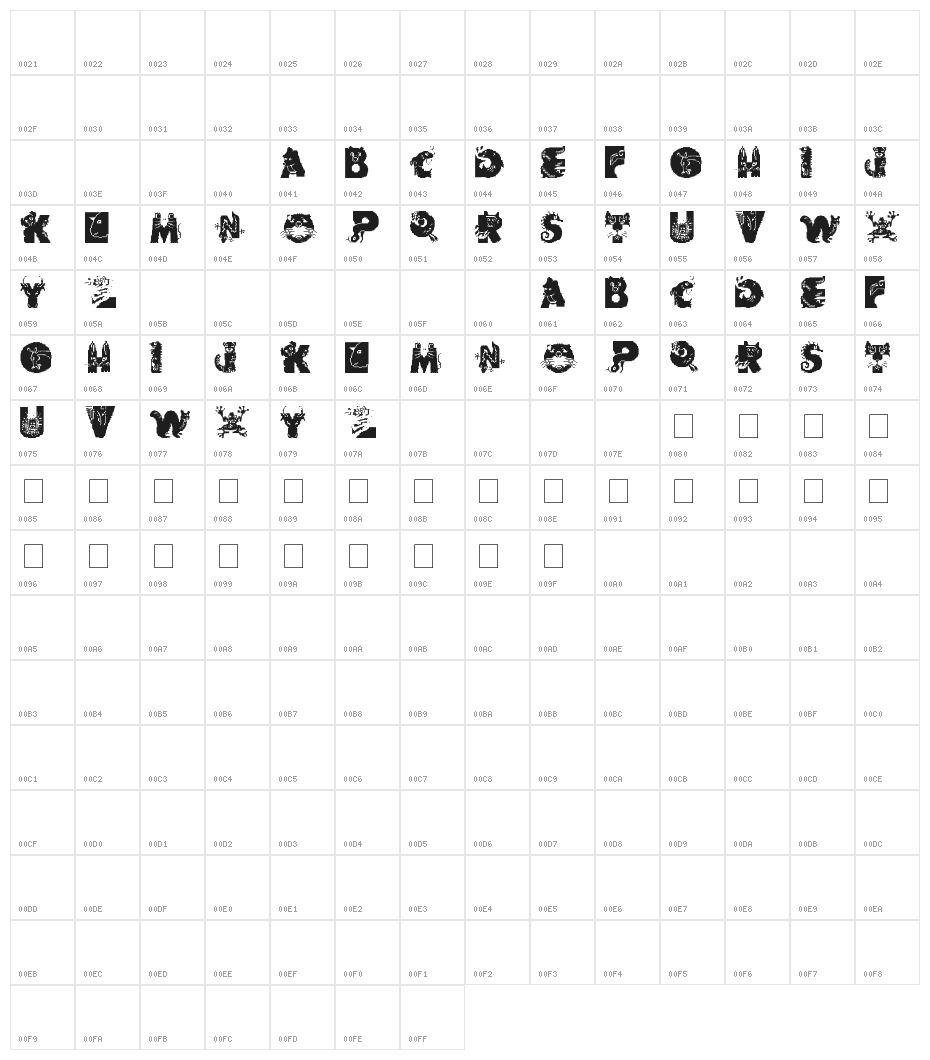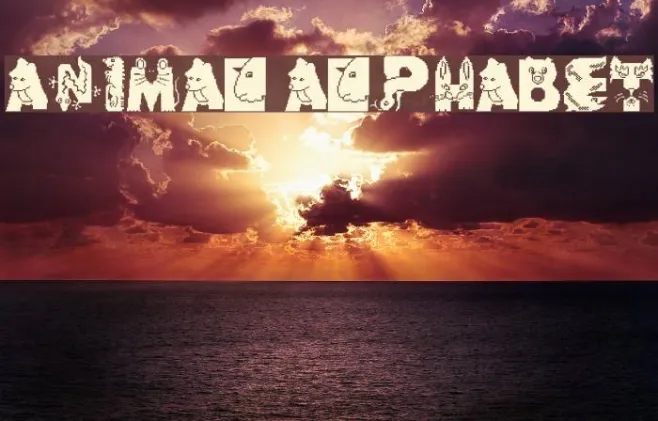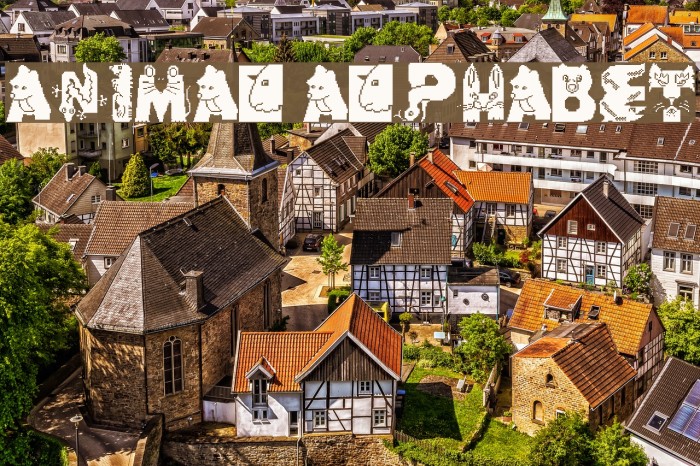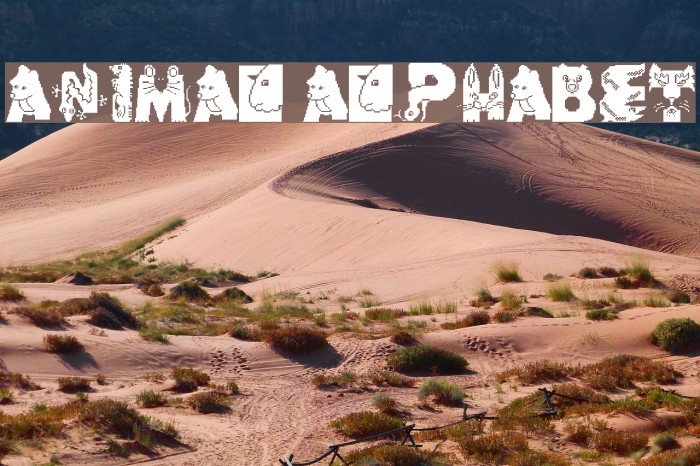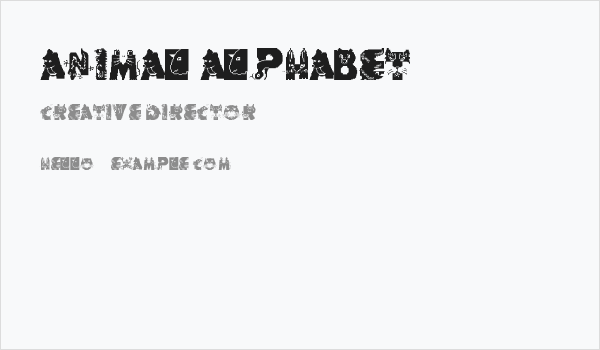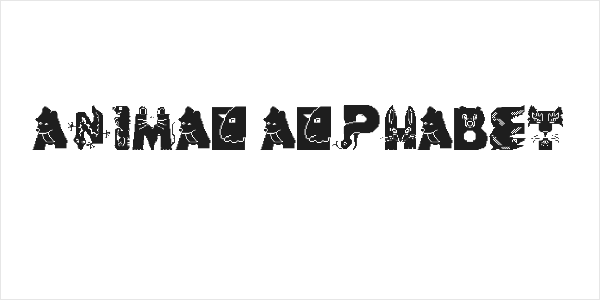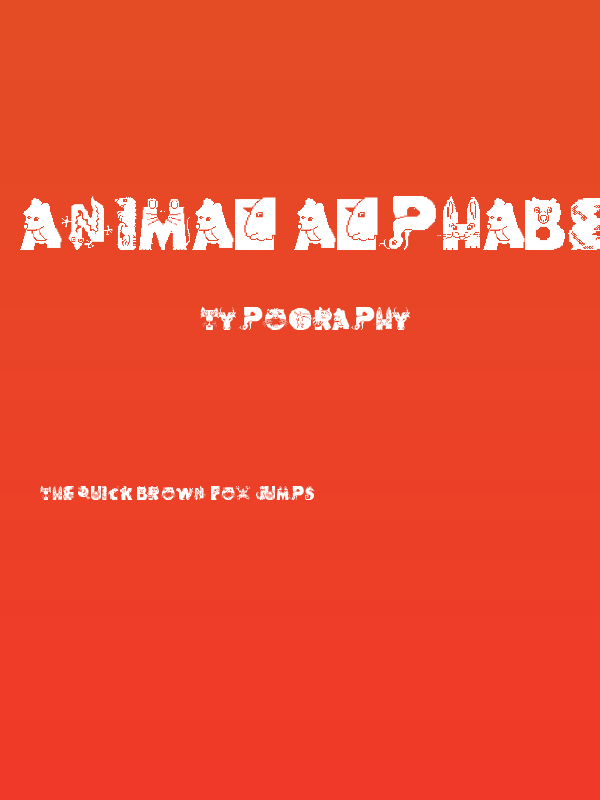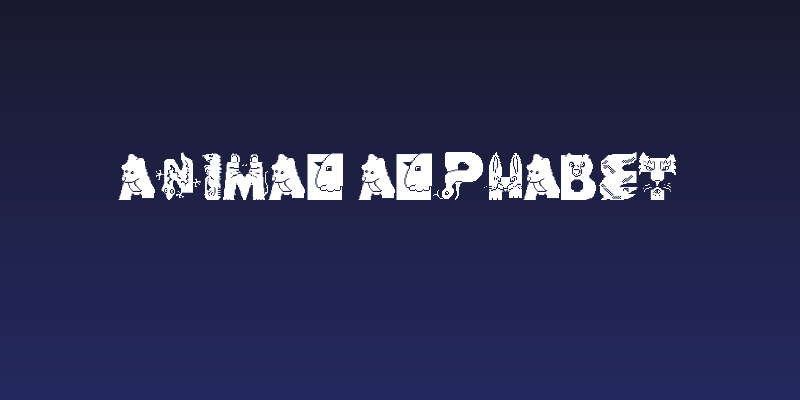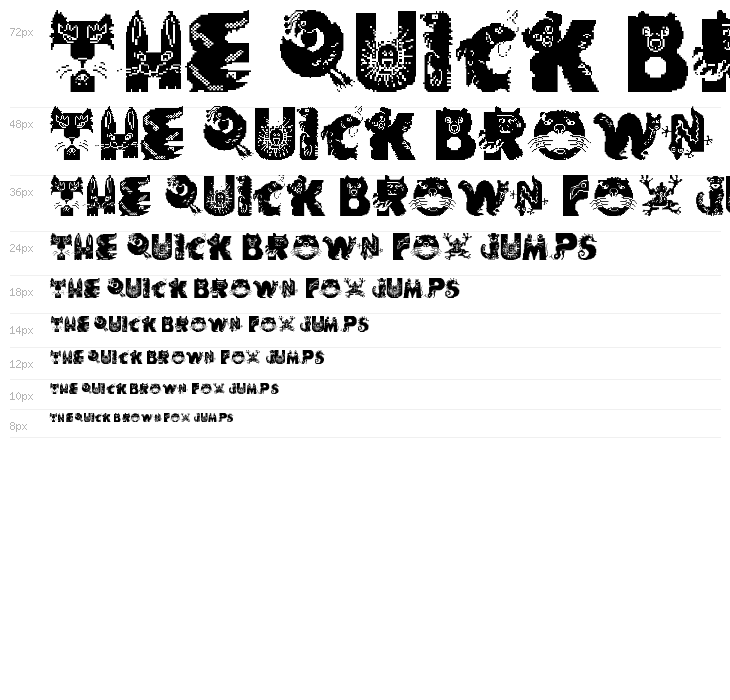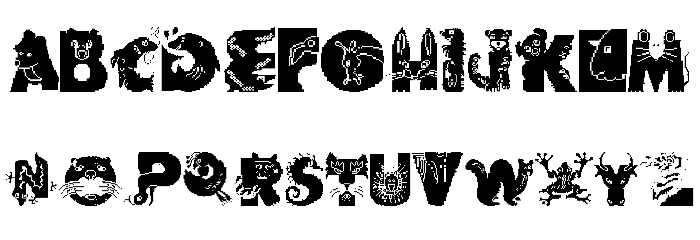
Animal Alphabet Font
Animal Alphabet Description
This playful and imaginative font features each letter creatively integrated with animal shapes, making it ideal for children's projects and educational materials. The bold, decorative style captures attention with its unique and whimsical design, where each character is adorned with elements resembling various animals. This font is perfect for projects that aim to engage a younger audience or add a fun, lively touch to any design. The intricate detailing within each letter adds a layer of complexity and charm, making it suitable for headlines or thematic displays. Its distinct style ensures that it stands out, providing a memorable visual experience.
| Use Case | Headlines, Logos, Themed Designs |
| Proposed Projects | Children's books, educational materials, playful branding, themed party invitations. |